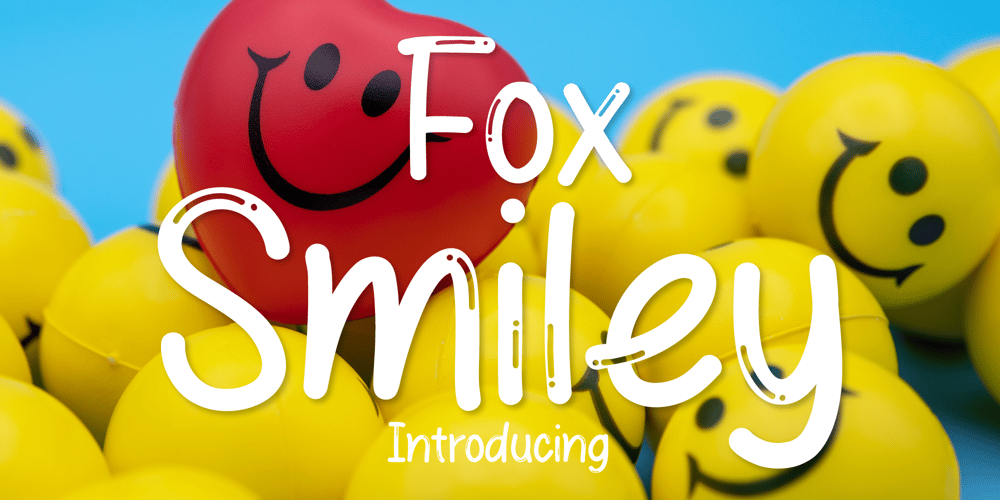
Fox Smiley Font Family was designed by Rattana Rattanawan and published by Fox7. Fox Smiley contains 1 styles and family package options. Fox Smiley Font is a playful and vibrant font that exudes a sense of fun and friendliness. It’s perfect for anyone looking to add a touch of cheer to their projects, whether it be for children’s materials, blog posts, logos, branding, or advertisements. With its cute and informal feel, Fox Smiley Font is sure to capture the attention of your audience and bring a smile to their faces.